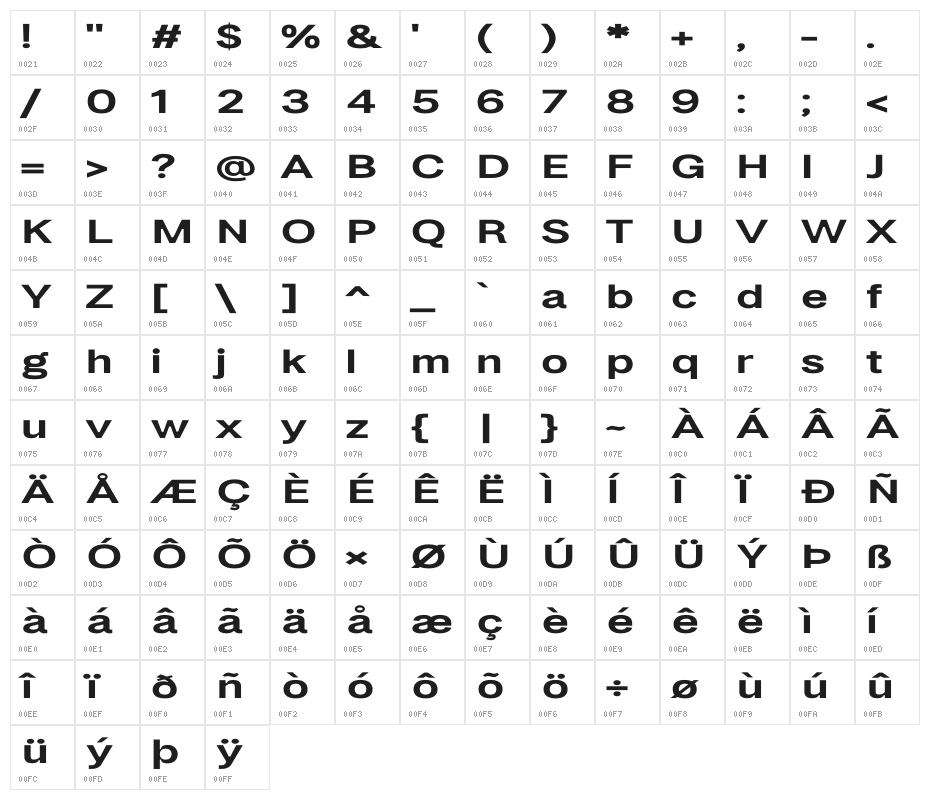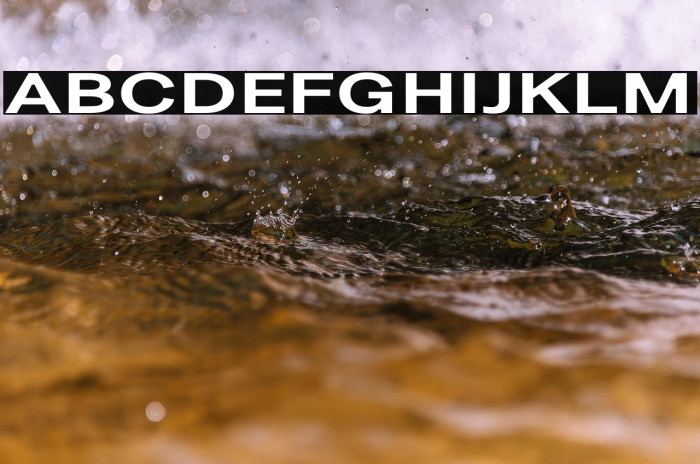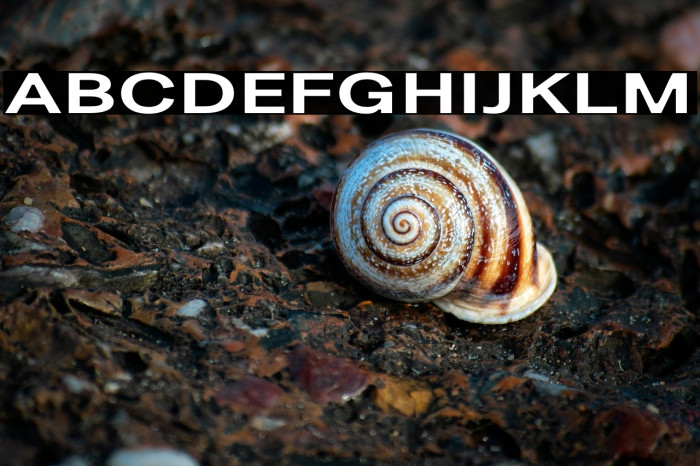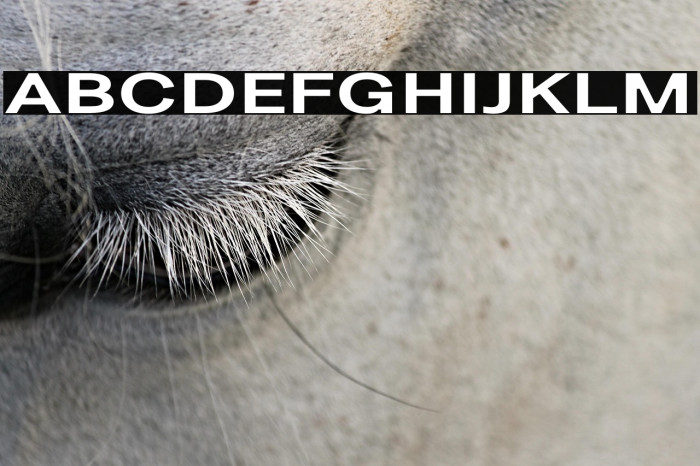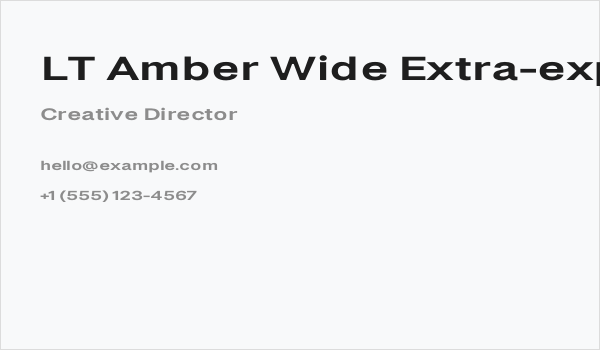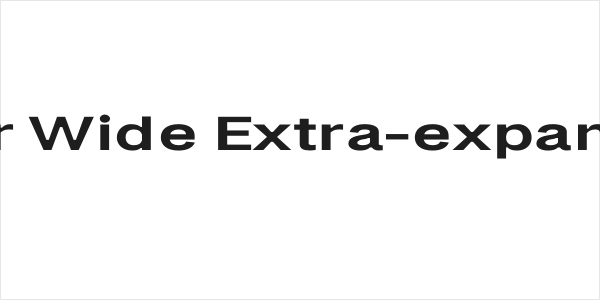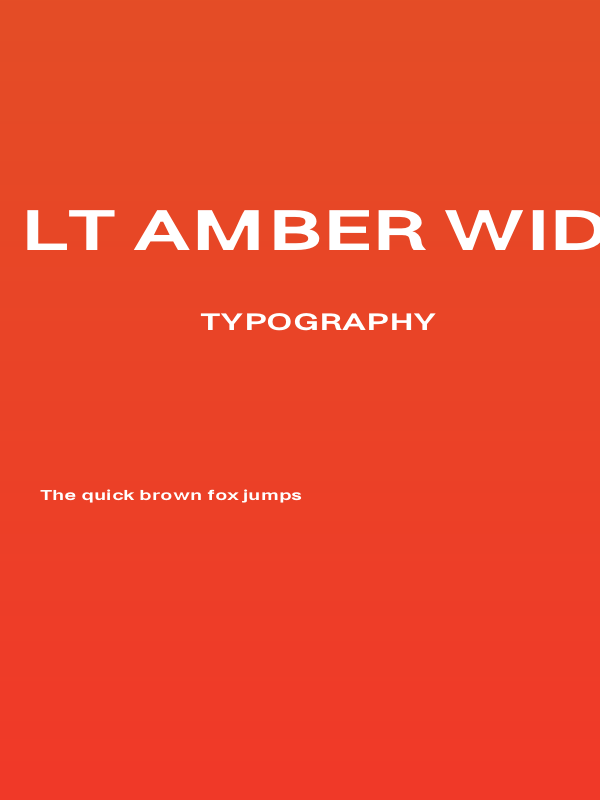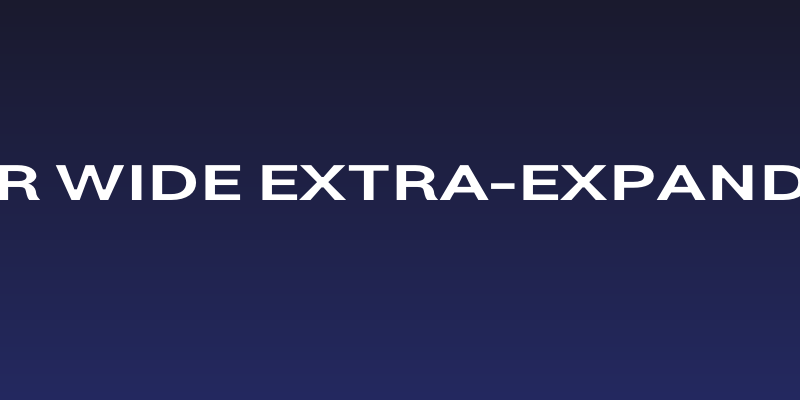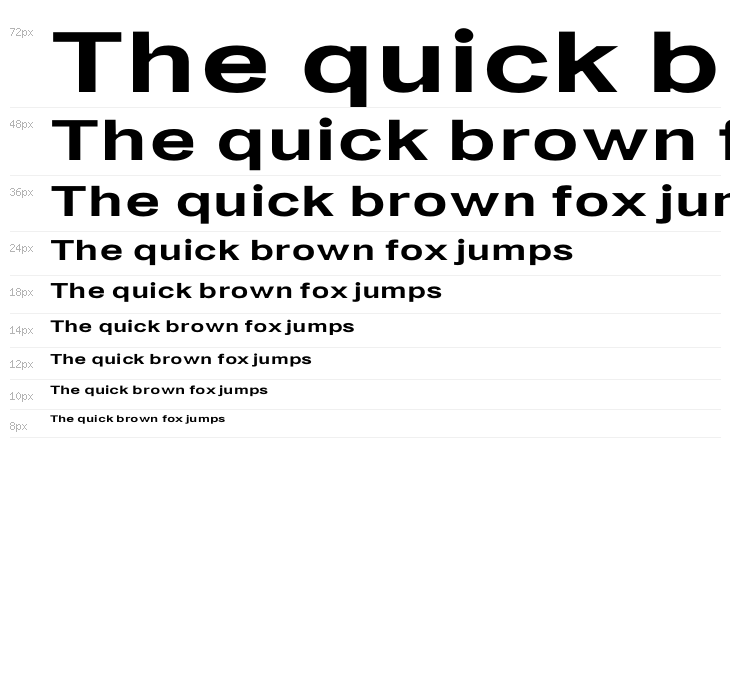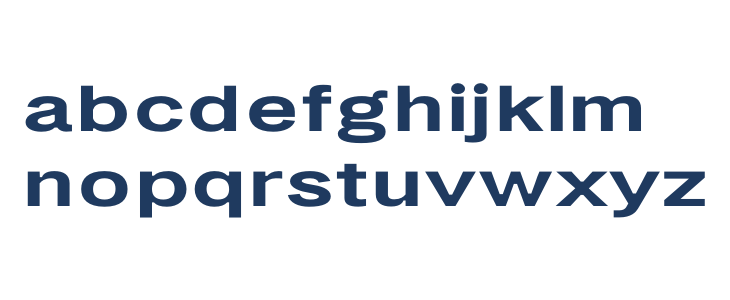
LT Amber Wide Extra-expanded Bold Font
LT Amber Wide Extra-expanded Bold Description
This typeface features a bold and commanding presence with its extra-expanded width, making it ideal for attention-grabbing headlines and impactful designs. The characters are uniformly bold, with a consistent stroke weight that provides a strong visual impact. The wide letterforms enhance readability from a distance, while the clean, sans-serif style ensures a modern and professional appearance. The font includes a full set of uppercase and lowercase letters, numerals, and a variety of punctuation marks, making it versatile for various design needs.